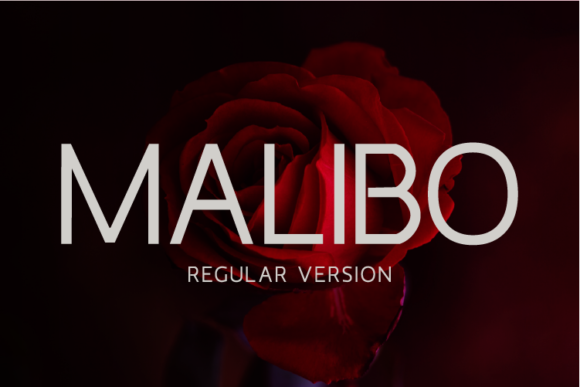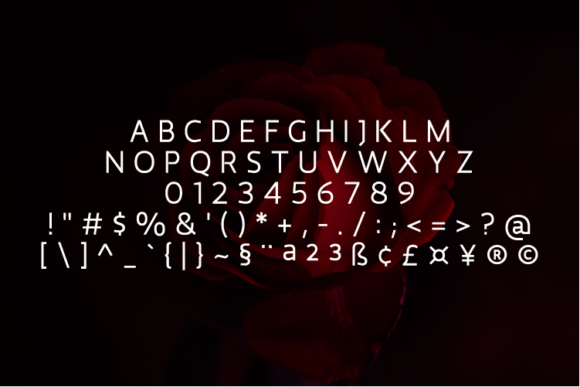
Malibo Regular Font
About Malibo Regular Font
Malibo is a distinct, elegant sans serif font that blends traditional influences into a contemporary aesthetic. Its well balanced Latin details contain distinctive contrasts. Use Malibo to achieve an exquisite, yet subtle look and maximum versatility.